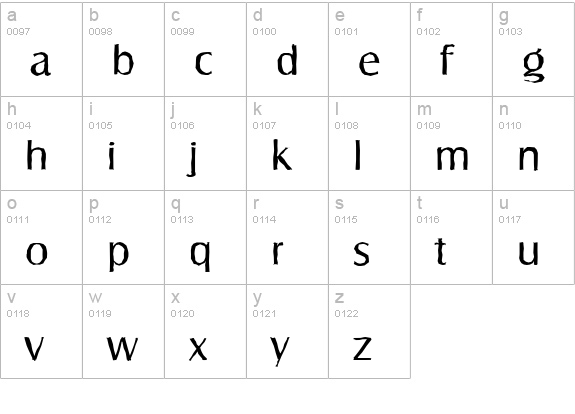
SalzburgAntique-Regular Font Details
SalzburgAntique-Regular is the standard, neutral variant in the SalzburgAntique typeface family \xE2\x80\x94 well suited to general body text, paragraphs, and standard typographic work.
SalzburgAntique-Regular font exudes an air of sophistication and vintage charm. With its elegant serifs and graceful curves, this timeless typeface is perfect for adding a touch of classic elegance to your designs. Whether you're working on invitations, posters, or branding materials, SalzburgAntique-Regular is sure to make a lasting impression. The best part? SalzburgAntique-Regular is available for free download at FontsMarket.com. That's right, you can elevate your projects with this exquisite font without spending a dime. Don't miss out on the opportunity to enhance your designs with the beauty and refinement of SalzburgAntique-Regular. Download it today and let your creativity shine!